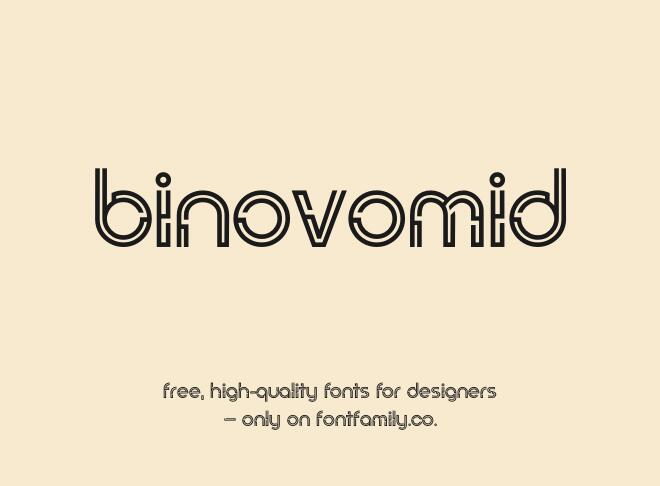
Binovomid Font
The Binovomid Font is a unique creation by Binovo Design Studio. Its modern and geometric design makes it a perfect choice for a wide variety of digital and print applications. Its clean lines and sharp edges give it a distinctive look that stands out in display and headline uses. Compared to other fonts, Binovomid offers a fresh and contemporary feel that adds a touch of sophistication to any design. Despite its modern appearance, Binovomid maintains a high level of readability, making it an excellent choice for both small and large text blocks. Its versatility makes it an ideal choice for branding, web design, posters, and more. If you're looking for a font that combines modern design with practical functionality, Binovomid Font is a great choice.